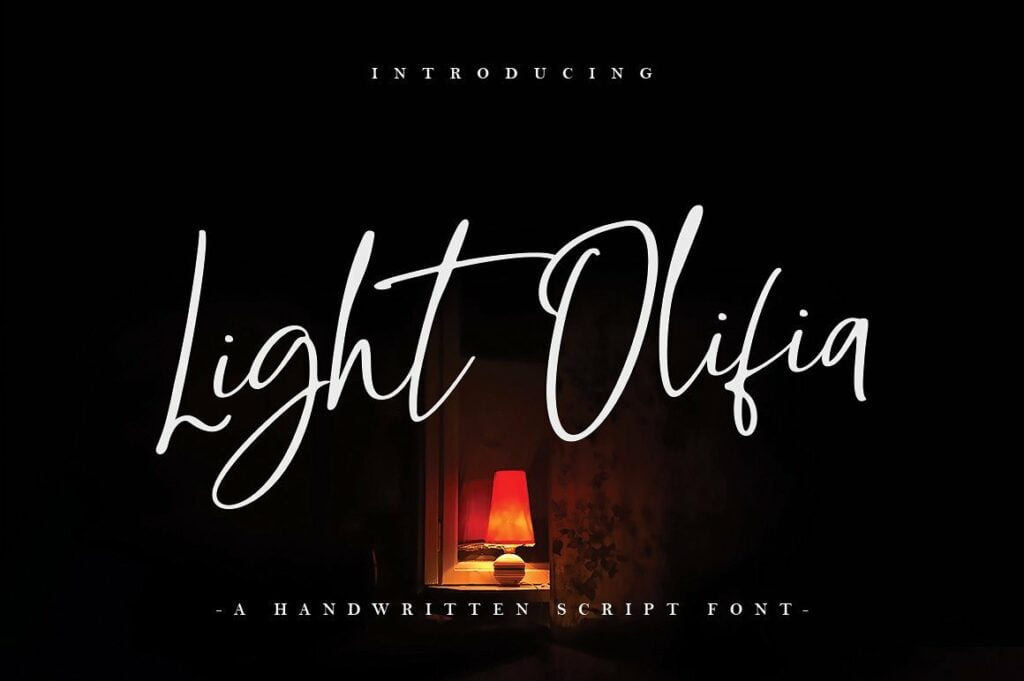
Light Olifia Script Font
Start the new day with a handwritten script font. Introducing Light Olifia. It is designed and shared by sizimon. Light Olifia is free-flowing, feminine, fashionable and friendly.
Light Olifia is perfect for fashion, e-commerce brands, trend blogs, or any business that wants to appear classy and chic.